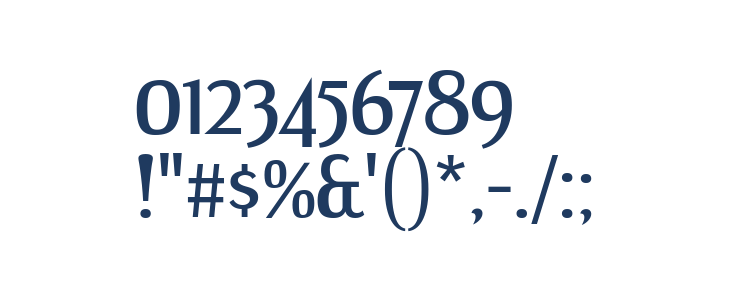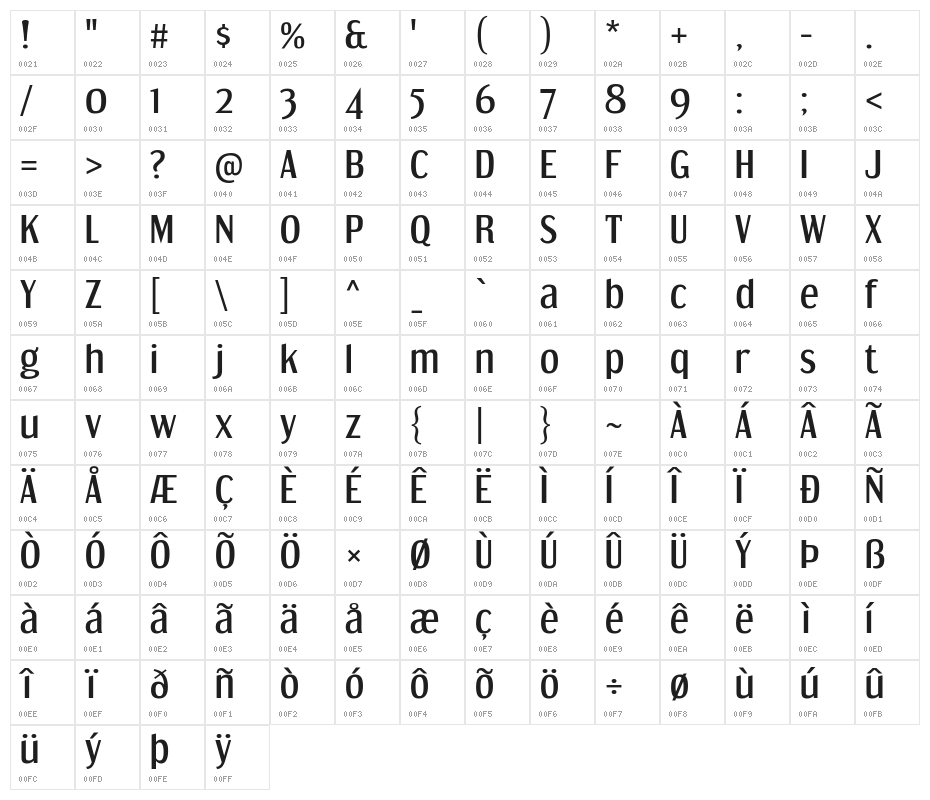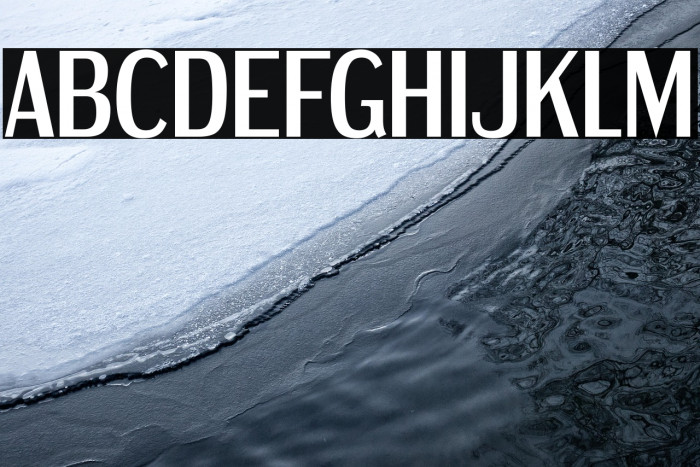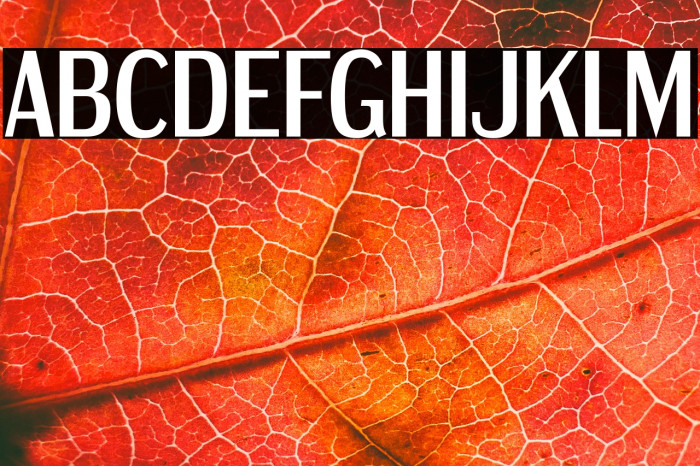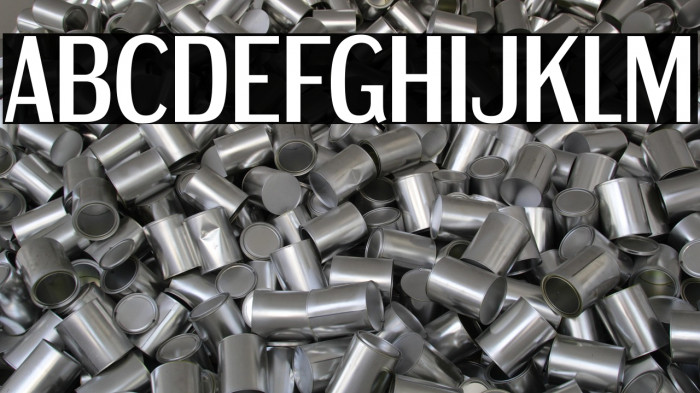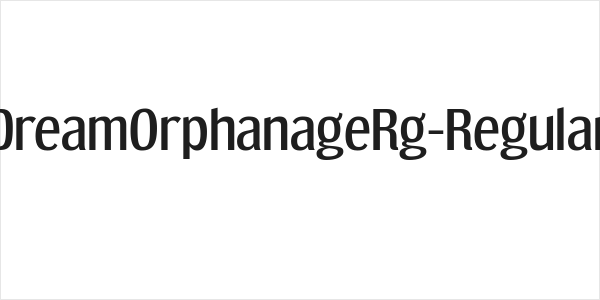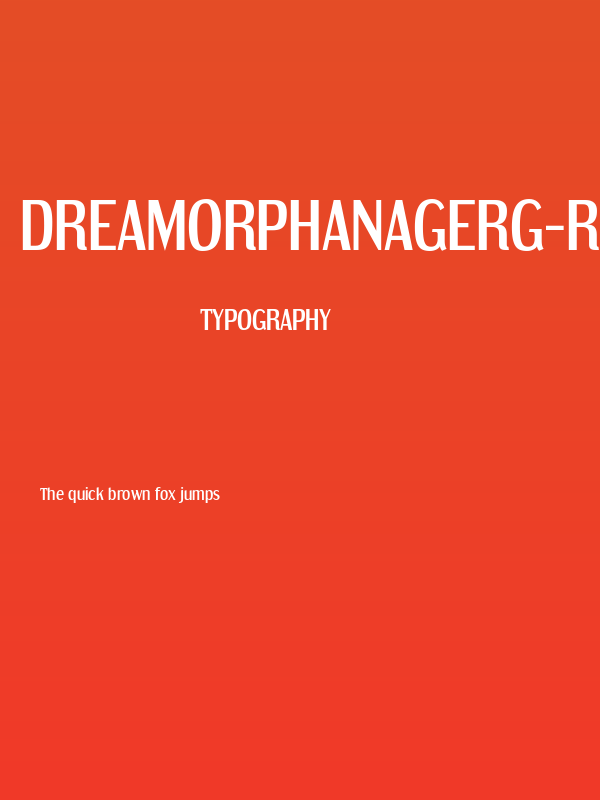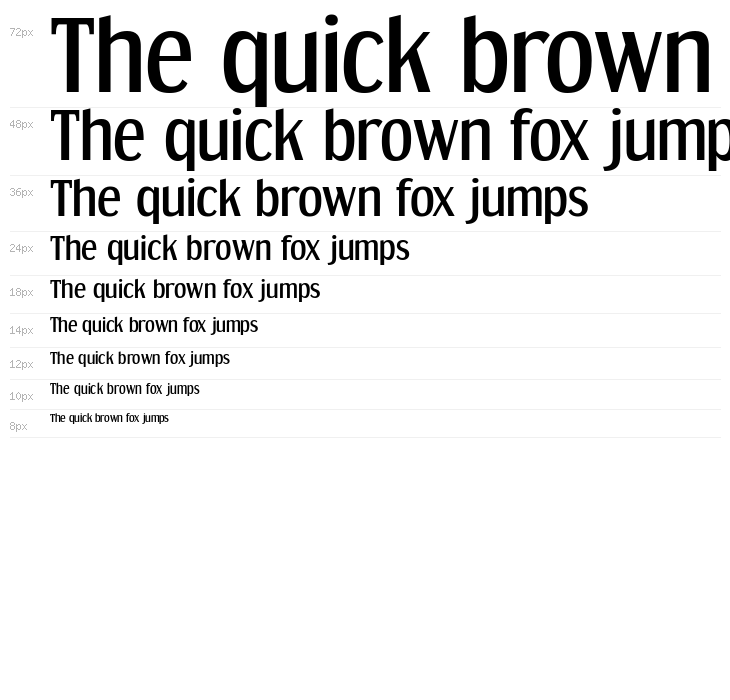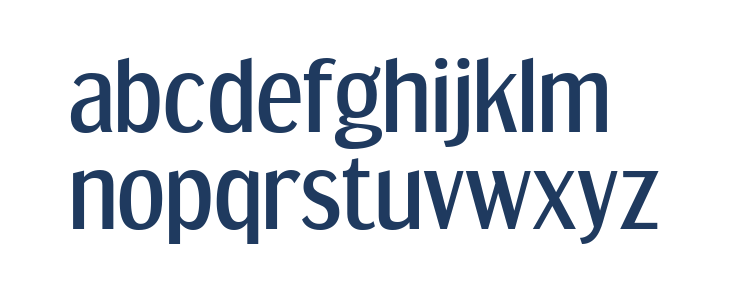
DreamOrphanageRg-Regular Font
DreamOrphanageRg-Regular Description
This typeface features a clean and modern sans-serif design with a balanced structure. The characters are well-proportioned, offering a harmonious blend of geometric and humanist elements. The uppercase letters are bold and assertive, while the lowercase letters maintain a friendly and approachable appearance. The numerals are clear and legible, making them suitable for various applications. The special characters are distinct and integrate seamlessly with the rest of the font, providing versatility in design projects.
| Proposed Projects | Ideal for branding, advertising, web design, and editorial projects where clarity and modernity are essential. |